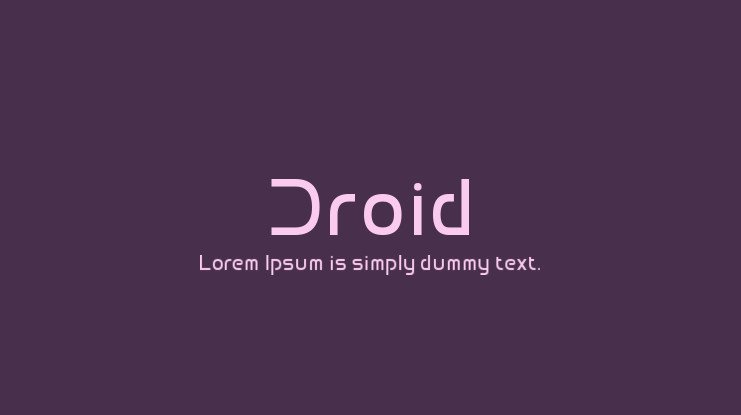
Droid Logo Android Free Font
Droid is a bold, futuristic LCD face based loosely on the logo of the Android operating system. This font includes the full alphabet, numerals, euro and extended punctuation. Includes regular, bold, italic, and bold-italic weights.